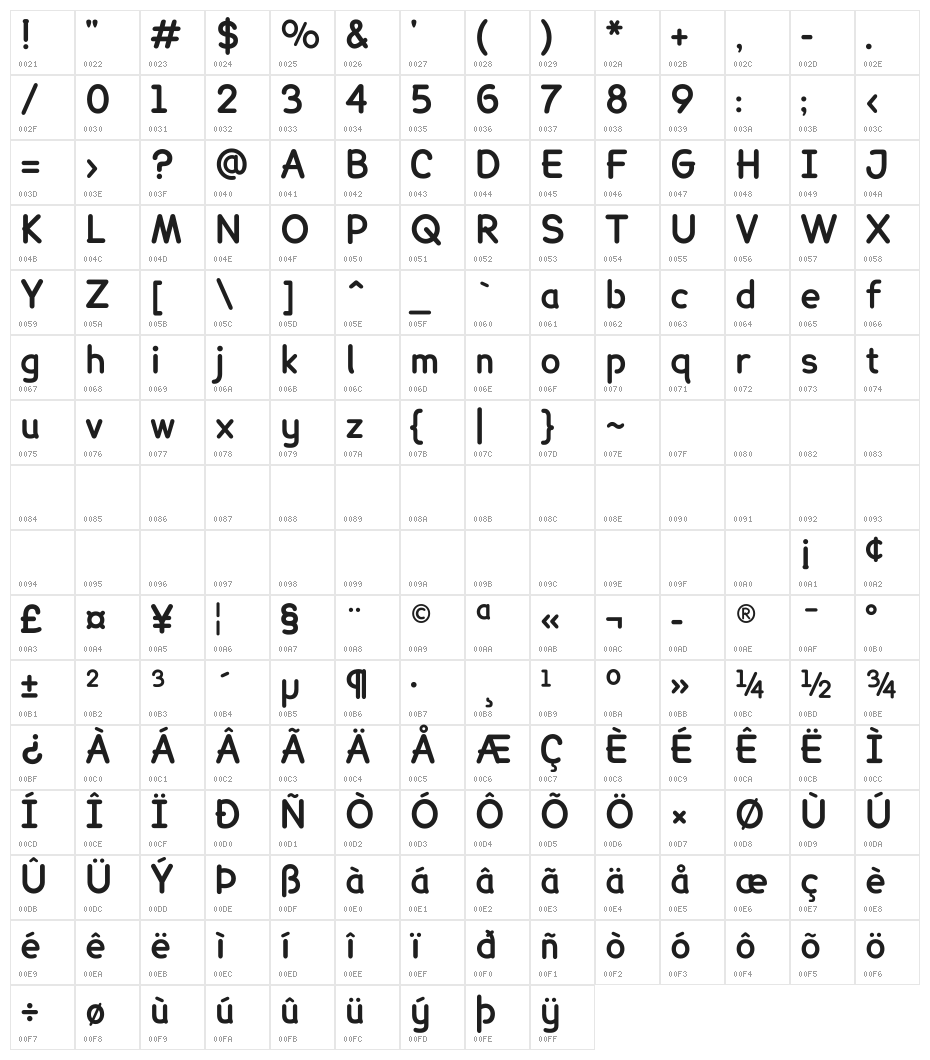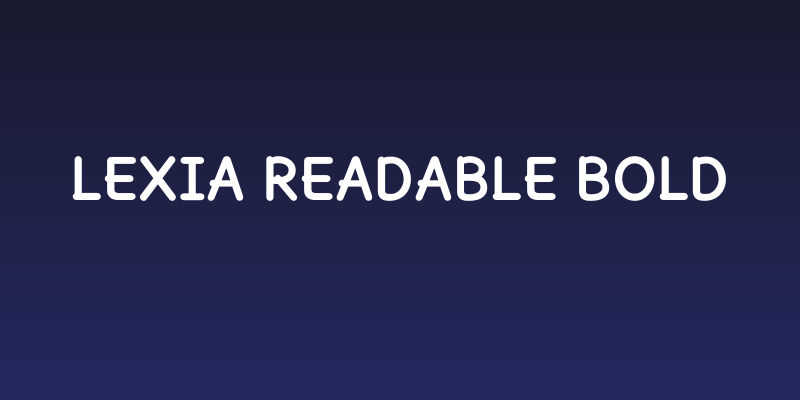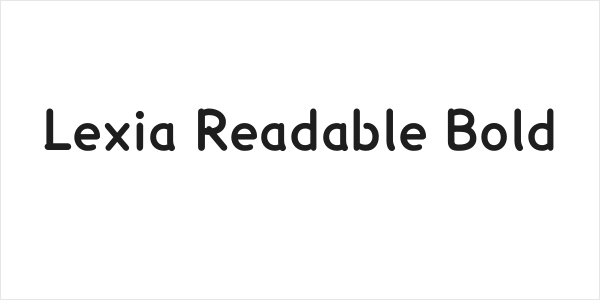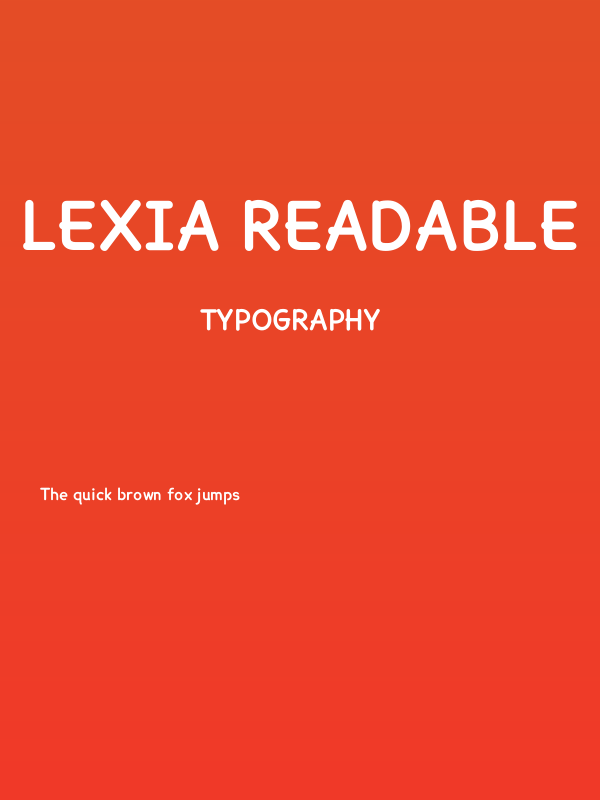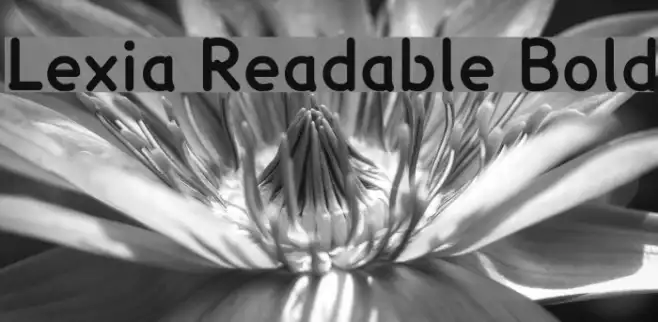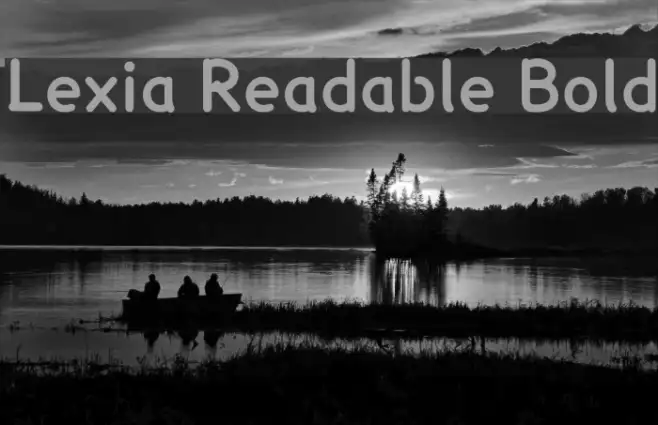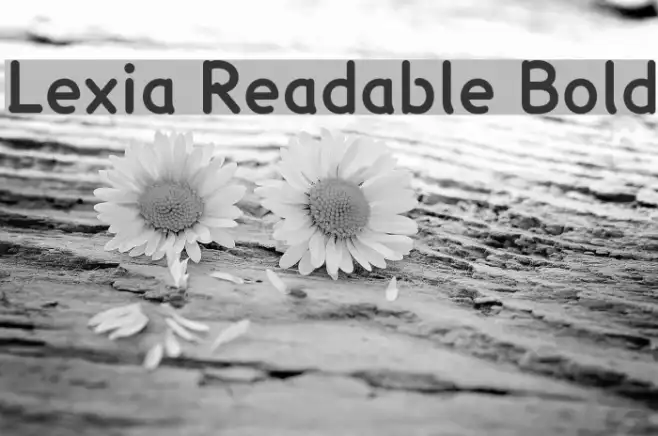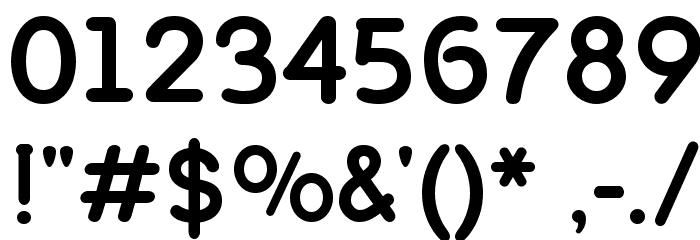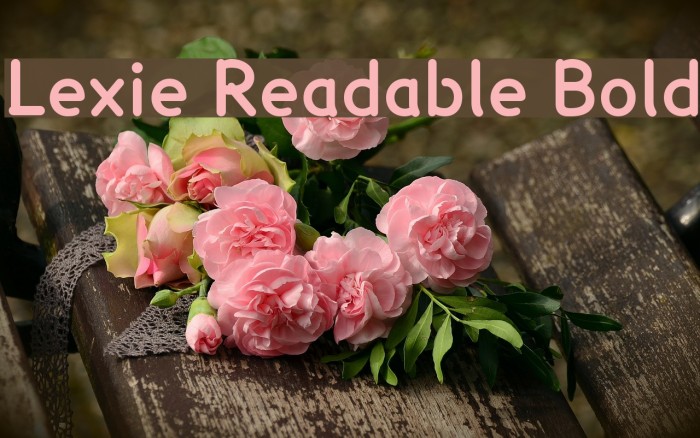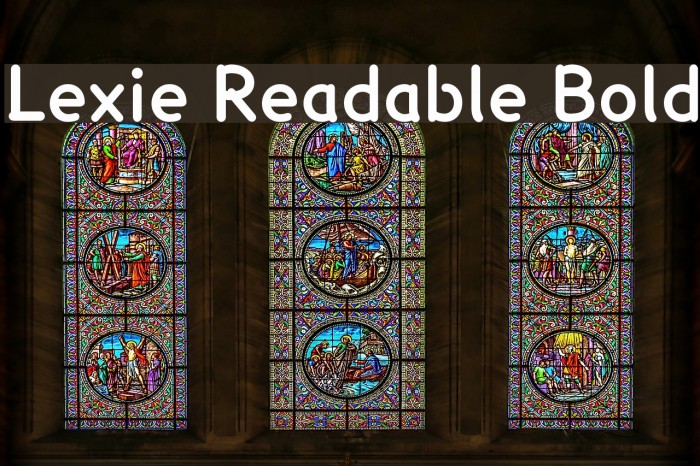
Lexia Readable Bold Font
Lexia Readable Bold Description
This font features a bold, rounded sans-serif style that emphasizes readability and clarity. The characters are evenly spaced with a consistent stroke width, making it highly legible across various sizes. Its design is clean and straightforward, with smooth curves and a modern aesthetic. The uppercase and lowercase letters are well-proportioned, and the numerals are clear and distinct. Special characters are included, maintaining the same bold and rounded characteristics. This font is particularly suitable for educational materials, digital interfaces, and any context where readability is paramount.
| Use Case | Headlines, Body text, Digital interfaces |
| Proposed Projects | Ideal for educational content, user interfaces, signage, and accessible design projects. |